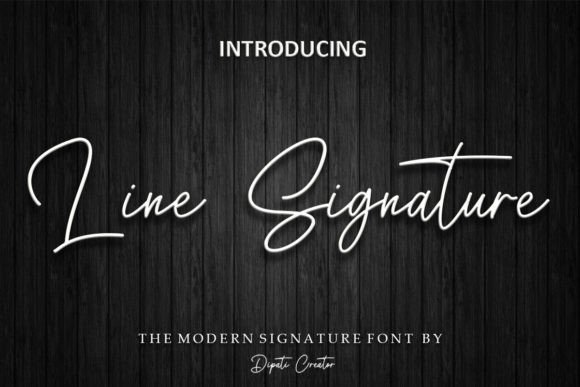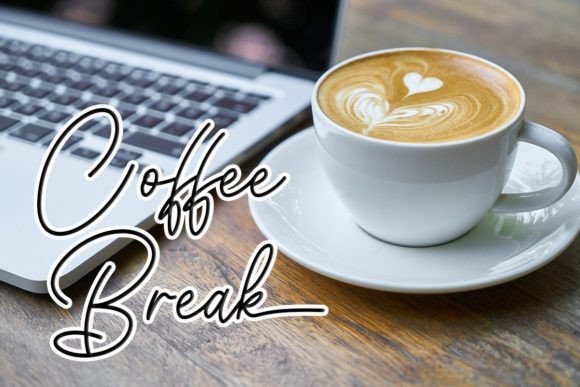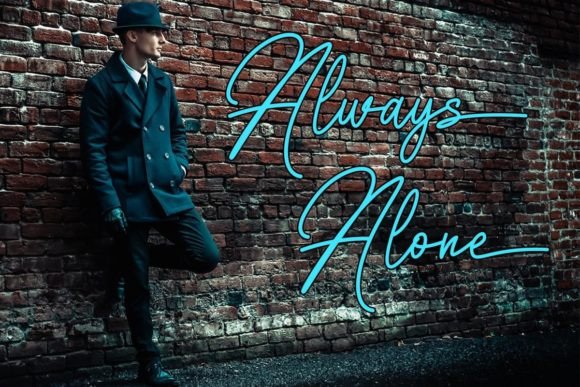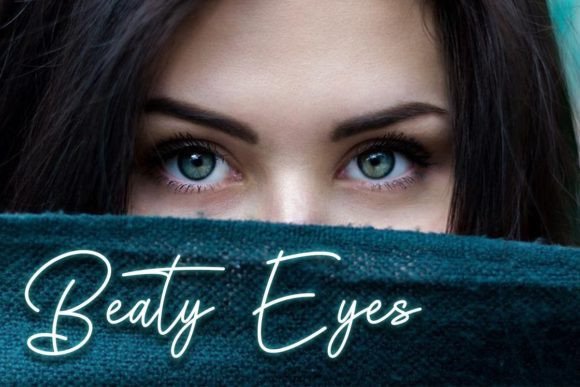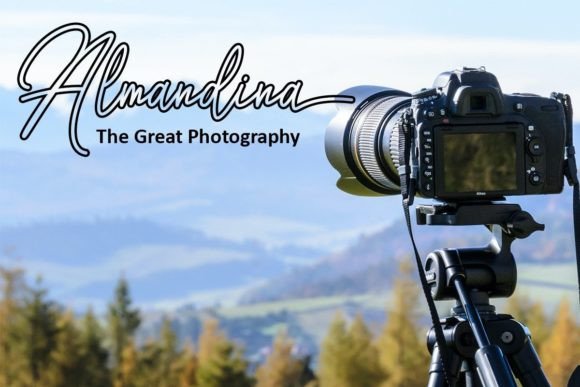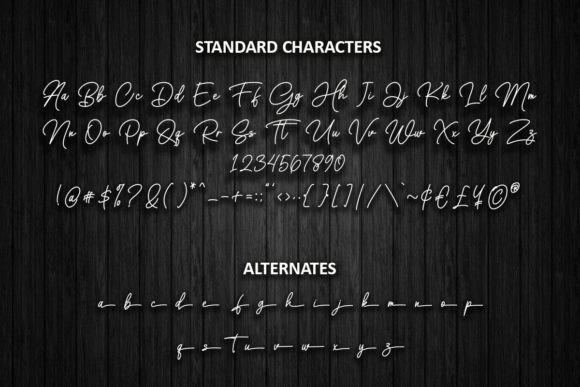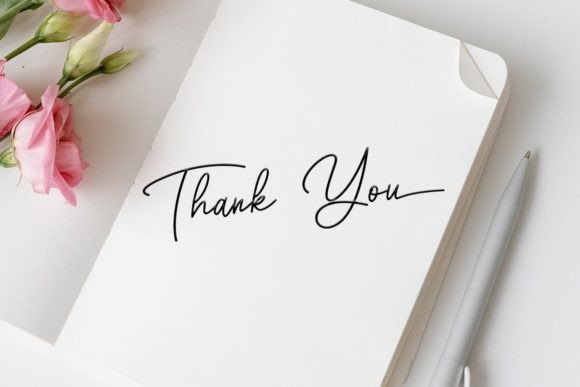
Line Signature Font
About Line Signature Font
Line Signature is more than just a font; it’s a modern handwriting signature that brings a unique and stunning touch to your design projects. Let’s delve into the distinctive features that make Line Signature stand out and explore how it can elevate your creative endeavors.
Line Signature is crafted to offer a modern and luxurious handwriting style, making it an ideal choice for various design applications. Whether you’re working on t-shirt designs, invitations, magazines, or greeting cards, Line Signature brings a touch of sophistication to your projects.
The font’s unique feel is one of its defining characteristics. It sets Line Signature apart, providing a distinct and memorable appearance that captures attention. This uniqueness is particularly valuable when you want your designs to stand out and make a lasting impression.
The stunning impact of Line Signature is evident in its ability to add a luxury spark to any design project. The font’s elegant strokes and carefully designed letterforms contribute to an overall aesthetic that exudes refinement. This makes Line Signature well-suited for projects where a touch of sophistication is desired.
Line Signature’s versatility extends to its encoding, as it is PUA encoded. This means you have easy access to a range of amazing glyphs and ligatures, enhancing your creative freedom. Whether you’re looking for decorative elements, alternative characters, or flourishes, Line Signature provides the tools for expressive and personalized design.
In summary, Line Signature goes beyond being a font; it’s a design asset that brings modern luxury to your projects. Whether you’re creating stylish t-shirts or elegant invitations, Line Signature offers a unique and stunning signature style that enhances the beauty of your designs.